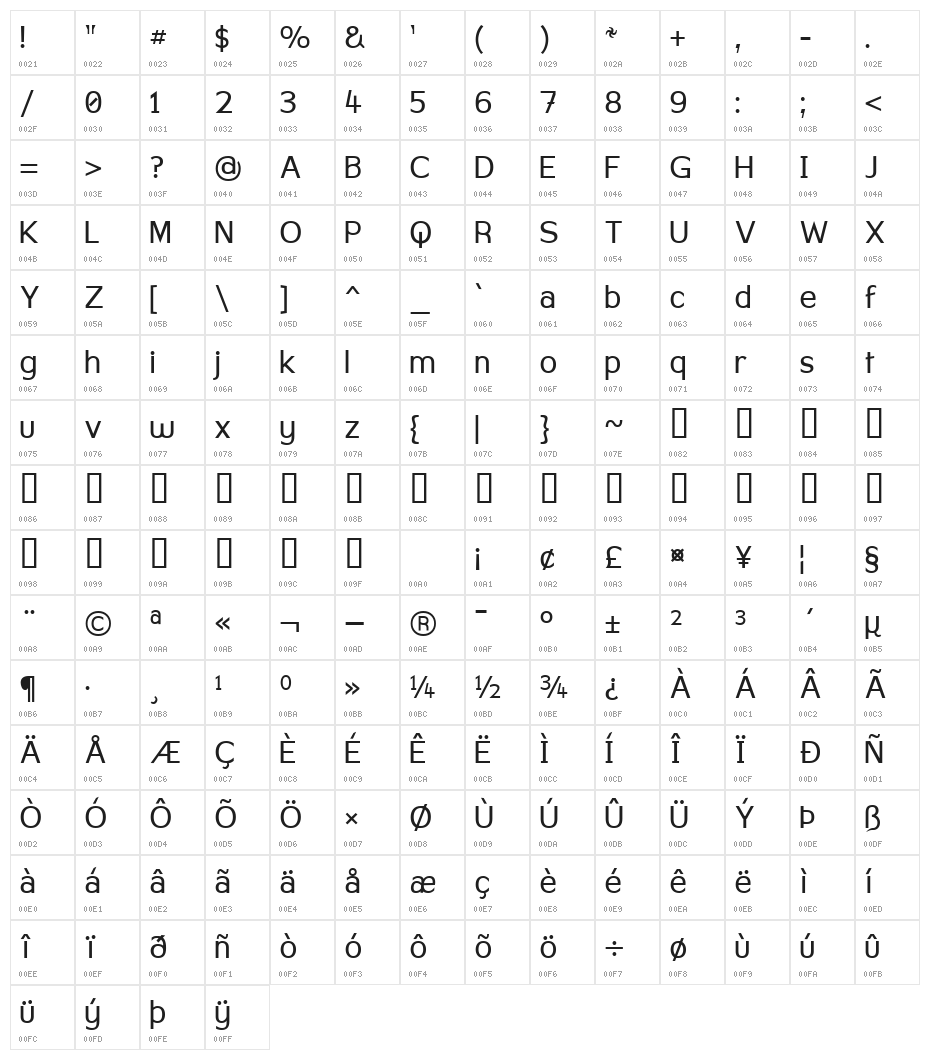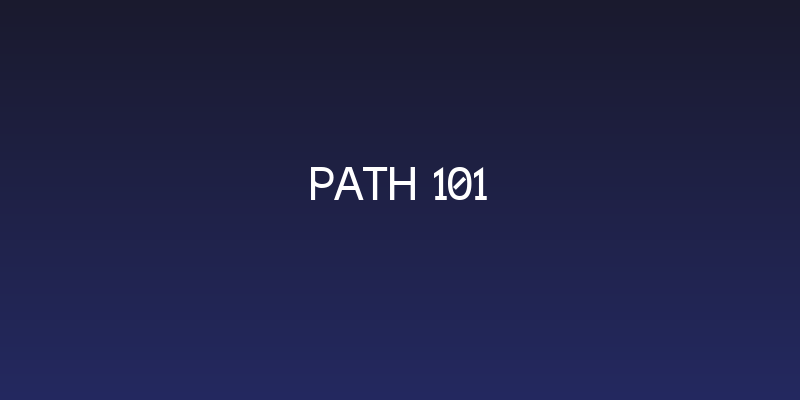
Path 101 Font
Path 101 Description
This font exhibits a clean and modern sans-serif style, characterized by its geometric shapes and uniform stroke widths. The uppercase and lowercase letters maintain a consistent height and spacing, contributing to a balanced and harmonious appearance. The numerals are clear and easily distinguishable, while the special characters are well-integrated, enhancing the font's versatility. Its simplicity and clarity make it suitable for a wide range of applications, from digital interfaces to print media. The overall design is minimalistic, focusing on readability and functionality.